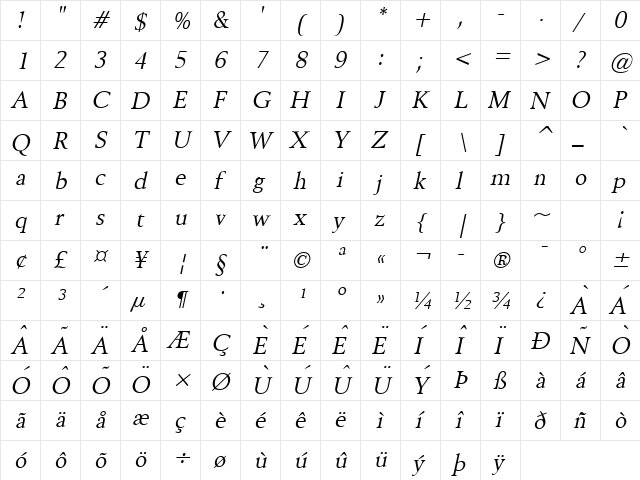
Revive 8 Italic
Design Context for Revive 8 Typeface
Revive 8 is a composed and adaptable typeface that performs quietly and consistently across a wide range of design contexts. The dynamic lean of this cut emphasises speed and emphasis in any layout.
Pro Tip: Try Revive 8 for annotation and caption copy alongside an upright companion — the contrast in angle creates a dynamic but ordered typographic system.